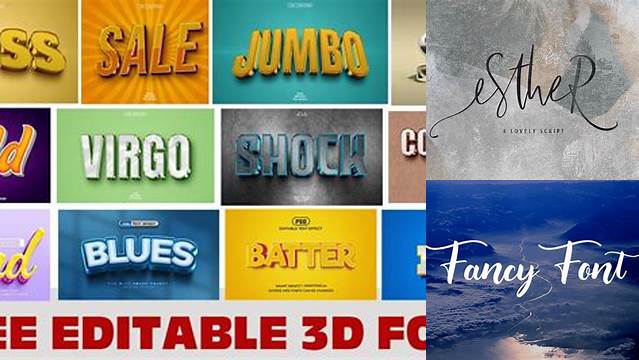
Free Photoshop Fonts: Easy Download Guide
Hey guys! Ever wondered how to make your Photoshop projects pop with amazing typography without spending a dime? You're in the right place! This guide will walk you through everything you need to know about finding and downloading free fonts for Photoshop. From understanding font licenses to exploring the best websites for free fonts, we’ve got you covered. Let’s dive in and make your designs stand out!
2. Best Websites for Free Photoshop Fonts
Okay, now for the fun part! There are tons of awesome websites where you can find free fonts for Photoshop. But with so many options, it can be tough to know where to start. Let’s talk about some of the best resources out there. First up, we have Google Fonts. This is a fantastic resource because all the fonts are open-source and completely free to use, even for commercial projects. The interface is clean and easy to navigate, and you can even preview how the fonts will look on your website. Another great option is DaFont. DaFont has a massive collection of fonts, ranging from script to display to handwritten styles. It's a bit more eclectic than Google Fonts, so you might have to sift through some to find the gems, but the variety is incredible. Font Squirrel is another top contender. They specialize in high-quality, commercially licensed free fonts. This means you can use them in your projects without worrying about legal issues. Plus, they have a Font Identifier tool that helps you find fonts similar to ones you've seen elsewhere. Creative Market also offers free goods every week, which often include fonts. Keep an eye on their site to snag some premium fonts without paying a premium price. Lastly, don't forget about Behance and Dribbble. Many designers share their fonts for free on these platforms, so they're great places to discover unique and lesser-known typefaces. Each of these sites offers a unique selection and licensing terms, so take some time to explore and find the perfect fonts for your next project. Happy hunting!
7. Free Script Fonts for Photoshop
Script fonts can add a touch of elegance and personality to your designs, but finding the right one can sometimes feel like a treasure hunt. Good news! There are tons of gorgeous free script fonts for Photoshop out there just waiting to be discovered. Script fonts come in all shapes and sizes, from elegant calligraphy styles to playful handwritten fonts. They’re perfect for invitations, logos, and anything that needs a personal touch. One great place to start your search is Google Fonts. Google Fonts has a fantastic selection of script fonts that are all free for commercial use. Fonts like “Great Vibes” and “Pacifico” are popular choices for their classic, flowing styles. DaFont is another excellent resource, with a vast collection of script fonts in various styles. However, as we mentioned before, always double-check the license agreement before using a DaFont font commercially. Font Squirrel also offers a curated selection of free script fonts, all of which are cleared for commercial use. This makes Font Squirrel a reliable choice for finding high-quality script fonts without worrying about licensing issues. Creative Market and other marketplaces often offer free fonts as part of their promotional deals. Keep an eye out for these freebies, as they often include beautiful script fonts that would otherwise cost money. When choosing a script font, think about the overall tone of your project. An elegant, formal script might be perfect for a wedding invitation, while a casual, handwritten script might be better for a blog header or social media graphic. Don't be afraid to experiment and try out different fonts to see what works best. Script fonts can be a fantastic addition to your design toolkit, adding a touch of flair and personality to your projects. With so many free options available, you’re sure to find the perfect script font for your next design. Get creative with scripts!
8. Free Sans-Serif Fonts for Photoshop
Sans-serif fonts are the workhorses of the design world. They're clean, modern, and versatile, making them perfect for a wide range of projects. And guess what? There are tons of amazing free sans-serif fonts for Photoshop available! Sans-serif fonts are characterized by their lack of serifs, the small decorative strokes at the ends of letters. This gives them a streamlined, contemporary look that works well for both body text and headlines. Google Fonts is an excellent resource for free sans-serif fonts. Fonts like “Roboto,” “Open Sans,” and “Lato” are incredibly popular and versatile, and they're all free for commercial use. These fonts are clean, legible, and work well in a variety of design contexts. Font Squirrel is another great place to find high-quality, commercially licensed free sans-serif fonts. Their selection is carefully curated, ensuring that you're getting top-notch fonts that are safe to use in your commercial projects. DaFont also has a wide variety of sans-serif fonts, but remember to check the license agreement before using them commercially. Some popular sans-serif fonts on DaFont include “Bebas Neue” and “Montserrat,” but make sure they’re marked as free for commercial use if that’s what you need. When choosing a sans-serif font, consider the overall tone and purpose of your project. A clean, minimalist font like “Helvetica” might be perfect for a corporate website, while a bolder, more impactful font like “Impact” might be better for a poster or headline. Sans-serif fonts are an essential part of any designer's toolkit. They offer a clean, modern aesthetic that works well in a variety of applications. With so many free options available, you can easily build a fantastic collection of sans-serif fonts without spending a dime. Sans-serifs for the win!
9. Free Serif Fonts for Photoshop
Serif fonts have a classic, elegant look that can add a touch of sophistication to your designs. If you're looking for free serif fonts for Photoshop, you're in luck! There are plenty of beautiful options available that won't cost you a penny. Serif fonts are characterized by the small decorative strokes, or serifs, at the ends of the letters. These fonts often have a more traditional feel than sans-serif fonts, making them perfect for projects that need a touch of class and formality. Google Fonts is a fantastic resource for free serif fonts. Fonts like “Times New Roman,” “Georgia,” and “Merriweather” are classic choices that are widely used and freely available for commercial use. These fonts are legible, versatile, and work well in both print and digital designs. Font Squirrel also offers a curated selection of high-quality, commercially licensed free serif fonts. This is a great place to find fonts that are not only beautiful but also safe to use in your commercial projects. DaFont has a vast collection of serif fonts, but as always, you need to check the license agreement before using them commercially. Some popular serif fonts on DaFont include “Playfair Display” and “Arvo,” but be sure to confirm that they are marked as free for commercial use if needed. When choosing a serif font, consider the overall tone of your project. A classic serif font like “Times New Roman” might be perfect for a formal document or book, while a more decorative serif font like “Playfair Display” might be better for a headline or logo. Serif fonts can add a touch of elegance and sophistication to your designs. With so many free options available, you can easily find the perfect serif font for your next project. Serifs are stylish!
10. Free Display Fonts for Photoshop
Display fonts are the showstoppers of the font world. They're bold, eye-catching, and perfect for making a statement. If you’re on the hunt for free display fonts for Photoshop, you've come to the right place! There’s a huge variety of display fonts out there, from chunky and retro to sleek and modern. Display fonts are designed to be used in headlines, logos, and other prominent design elements. They're not typically used for body text because their unique shapes can make them harder to read in large blocks. Google Fonts offers a great selection of free display fonts that are all available for commercial use. Fonts like “Oswald,” “Lobster,” and “Bangers” are popular choices for their distinctive styles. Font Squirrel is another fantastic resource for high-quality, commercially licensed free display fonts. Their curated collection ensures that you’re getting fonts that are both stylish and safe to use in your projects. DaFont has a massive collection of display fonts, but as always, remember to check the license agreement before using them commercially. You can find everything from vintage-inspired fonts to futuristic designs on DaFont. When choosing a display font, think about the message you want to convey. A bold, impactful font can grab attention, while a more whimsical font can add a touch of fun and personality. Consider the overall style and tone of your project and choose a display font that complements it. Display fonts are a fantastic way to add visual interest and personality to your designs. With so many free options available, you can easily find the perfect display font to make your project stand out. Make a statement with display fonts!